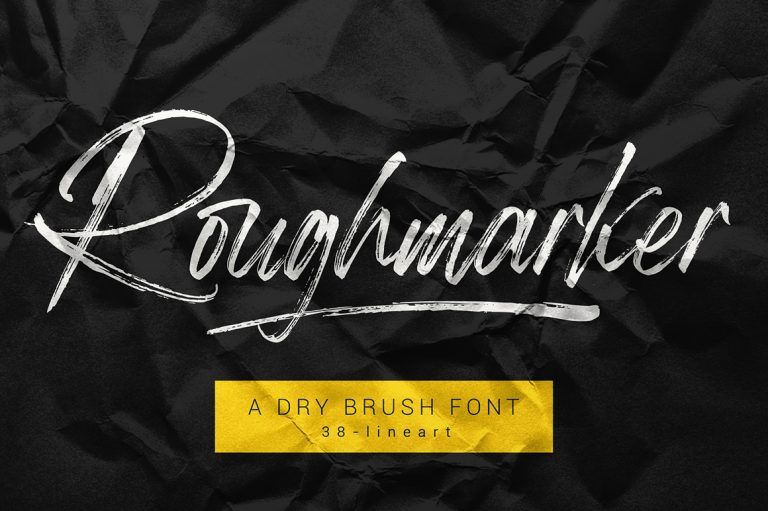
Roughmarker font consists of two handwritten scripts, a slant (regular) version and upright.
These Script fonts are manually handwritten with quick and rough strokes. We write them on paper until we find a very proportioned form. Then we scanned and took the selected glyphs to be processed into a font. The biggest challenge in making textures fonts are the very many node points, many node points make the font processing performance a bit slow. At first, we tried raising the node parameters to 2000-4000 points in one glyph. This is a big number, but if this number is lowered it will eliminate the impression of brush and natural look. We repeatedly look for gaps to minimize points so that the font capacity is not too large and comfortable when typed.
This script font is equipped with ligature as well as several alternate according to handwriting habits, very effective in the sense of not too much but often used.
This font is a great choice for contemporary brands, especially for businesses in fashion, urban style, websites, trends in architecture, cosmetics, and energetic lifestyle themes. An attractive typographic layout makes it also looks more premium in writing quotes.